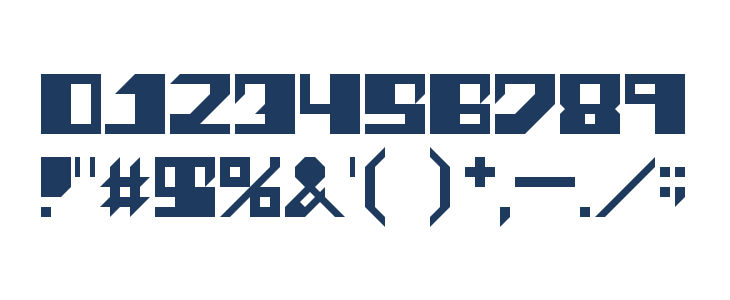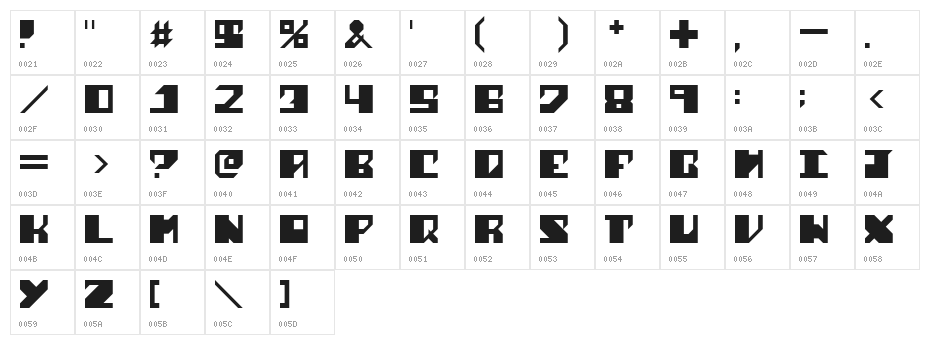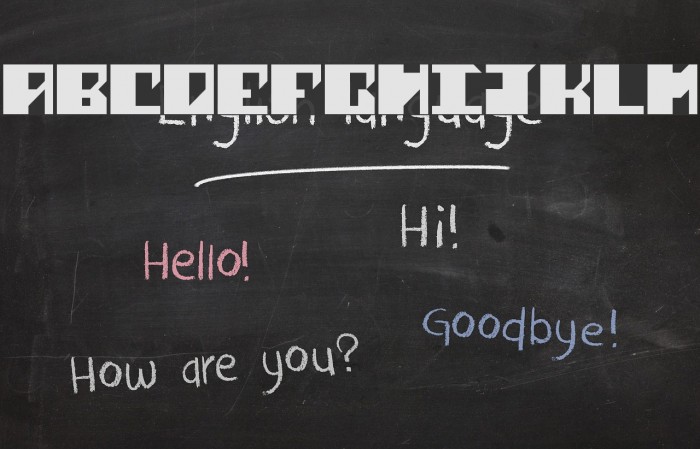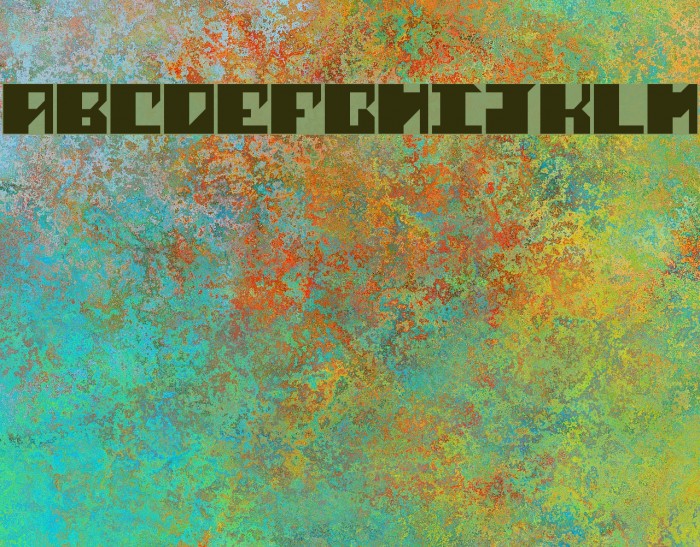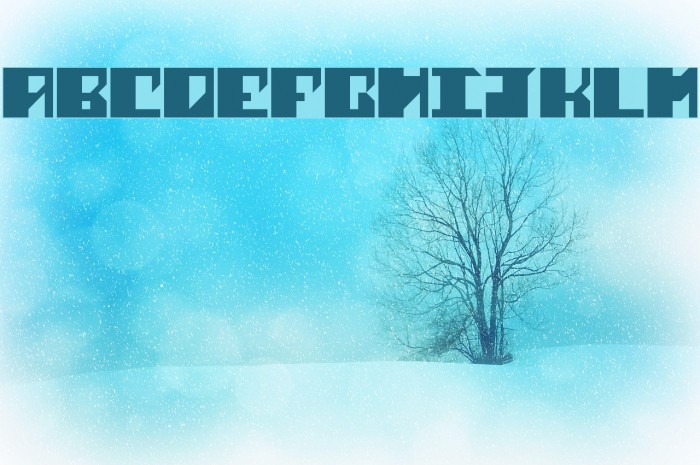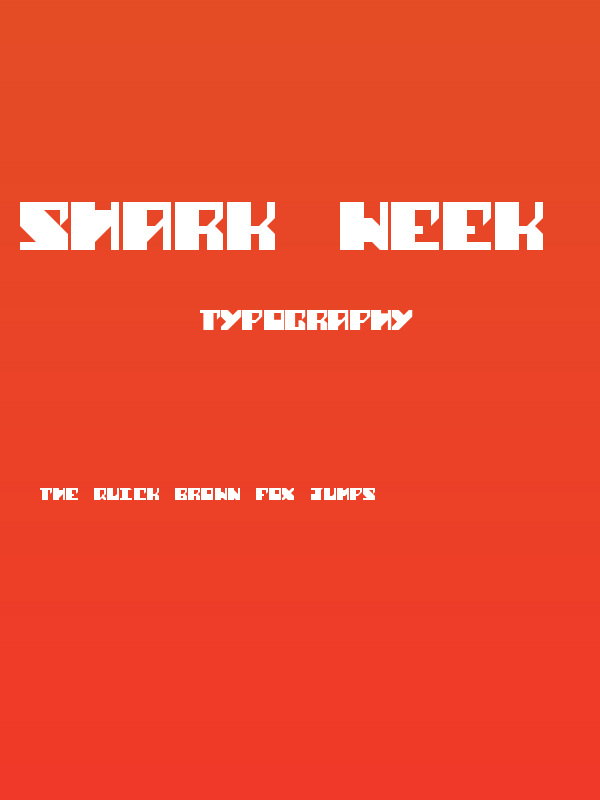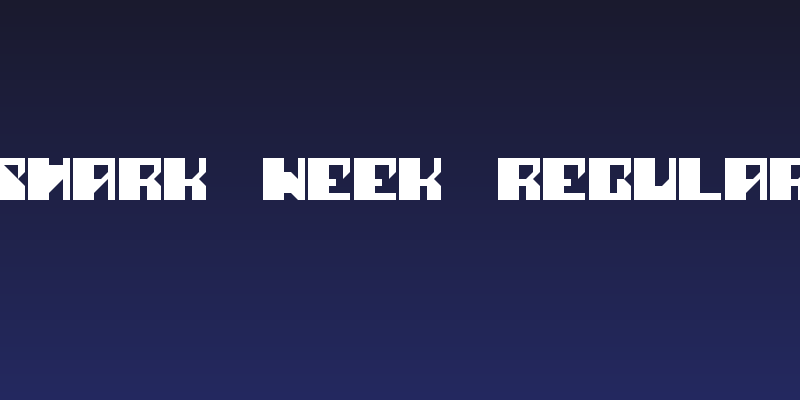
Shark Week Regular Font
Shark Week Regular Description
This font features a bold, angular design with a distinct geometric style. The characters are constructed with sharp edges and straight lines, giving them a modern and aggressive appearance. The uppercase letters are uniform in height, while the lowercase letters maintain the same angular aesthetic. Numbers and special characters follow the same design principles, ensuring consistency across all glyphs. The font's unique style makes it stand out, with a strong visual impact that is ideal for attention-grabbing designs.
| Proposed Projects | Ideal for use in branding, posters, video game graphics, and any project requiring a strong, modern aesthetic. |